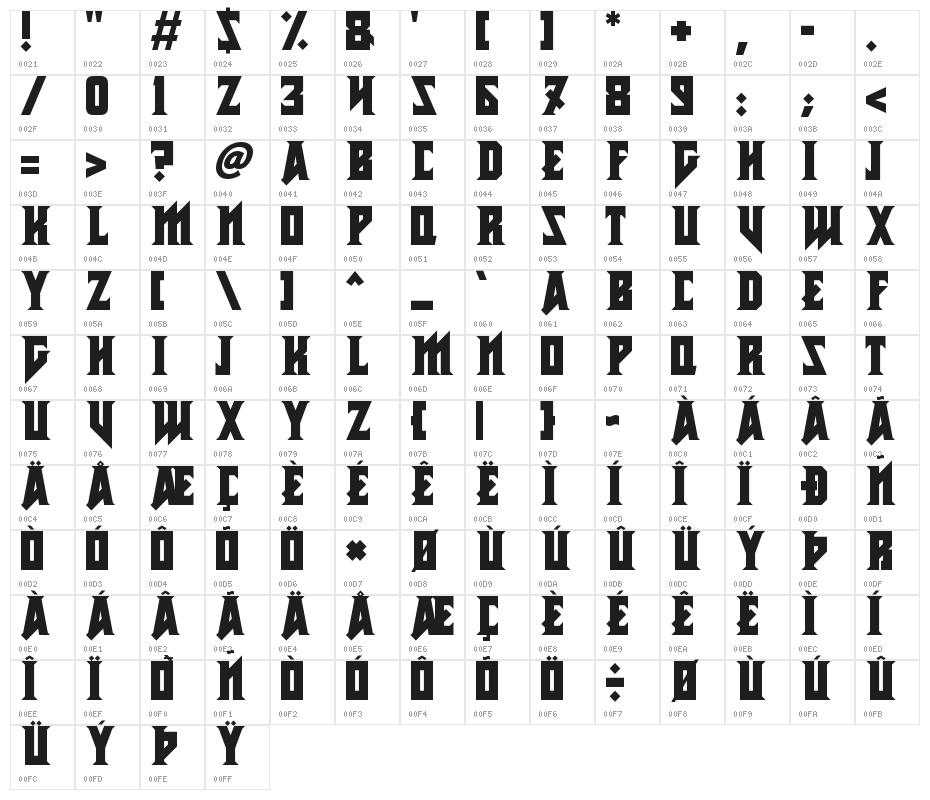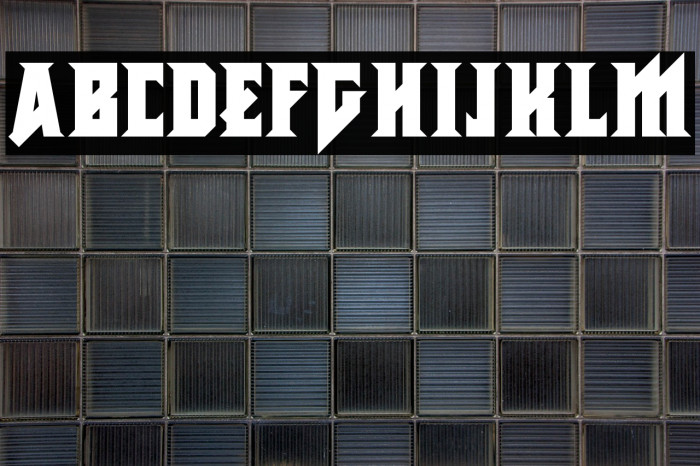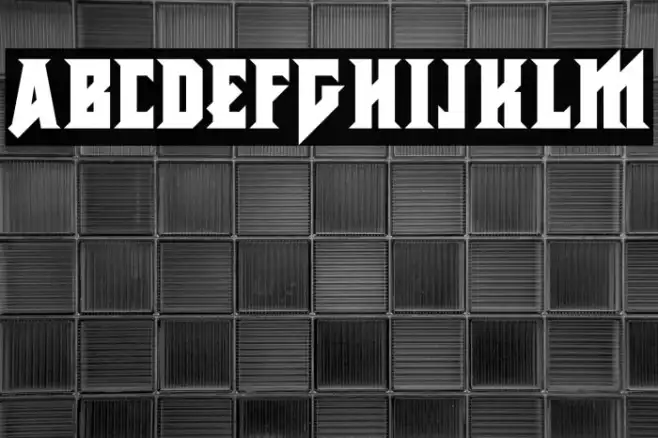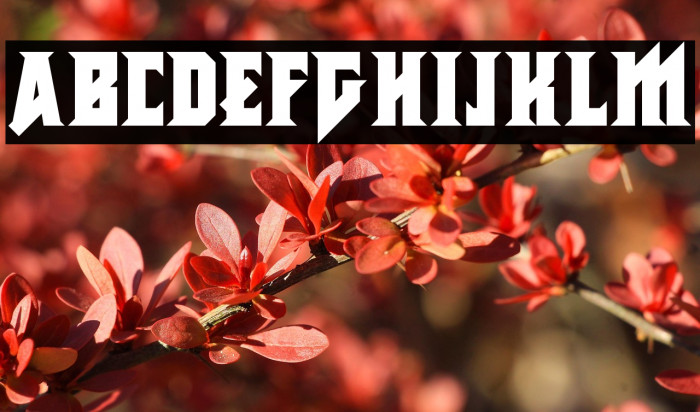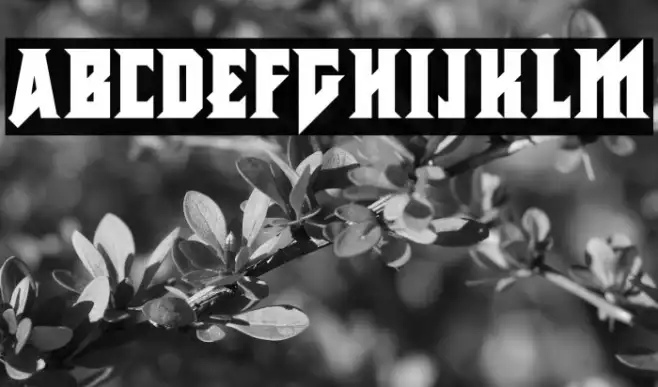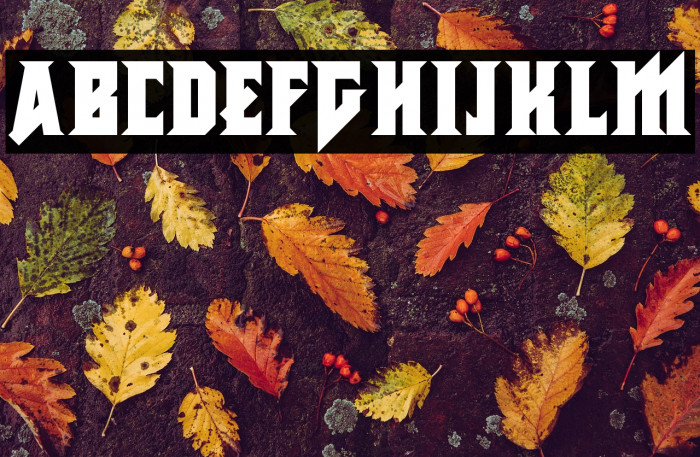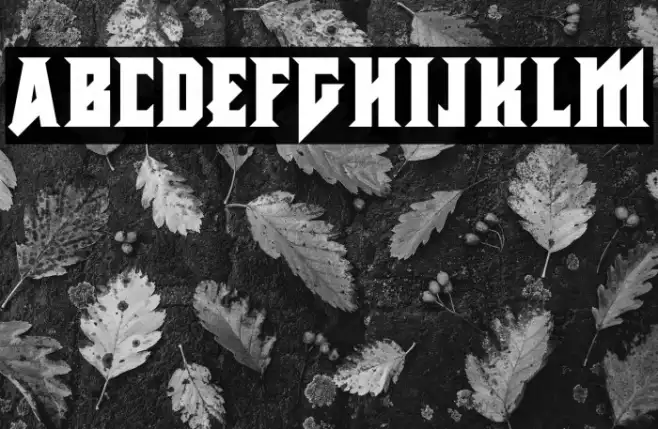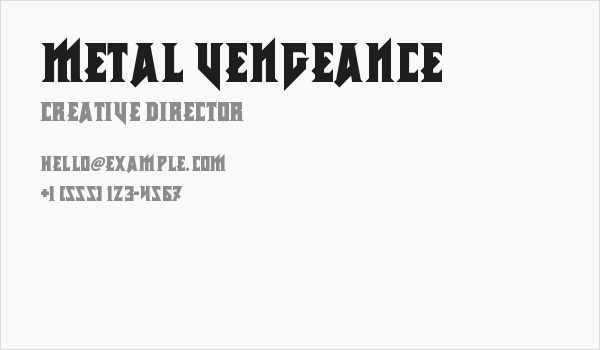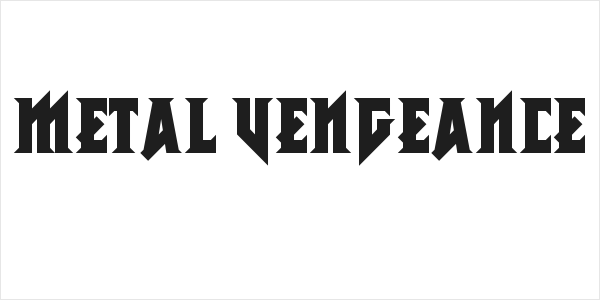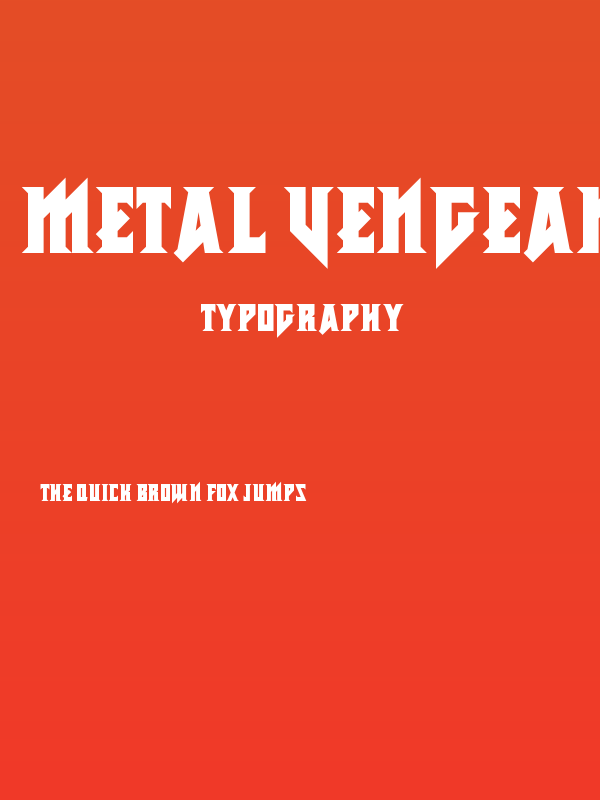
Metal Vengeance Font
Metal Vengeance Description
This font features a bold, angular design with sharp edges and a strong presence. The characters are heavily stylized, resembling a fusion of gothic and modern elements, making it ideal for projects that require a dramatic and impactful look. The uppercase letters are particularly striking, with a consistent geometric form that adds to the font's aggressive aesthetic. The numbers and special characters maintain the same boldness and angularity, ensuring a cohesive appearance across all text. This font is perfect for creating attention-grabbing headlines, logos, and posters that demand a powerful visual impact.
Proposed ProjectsIdeal for music album covers, event posters, logos, and branding for edgy or alternative products.